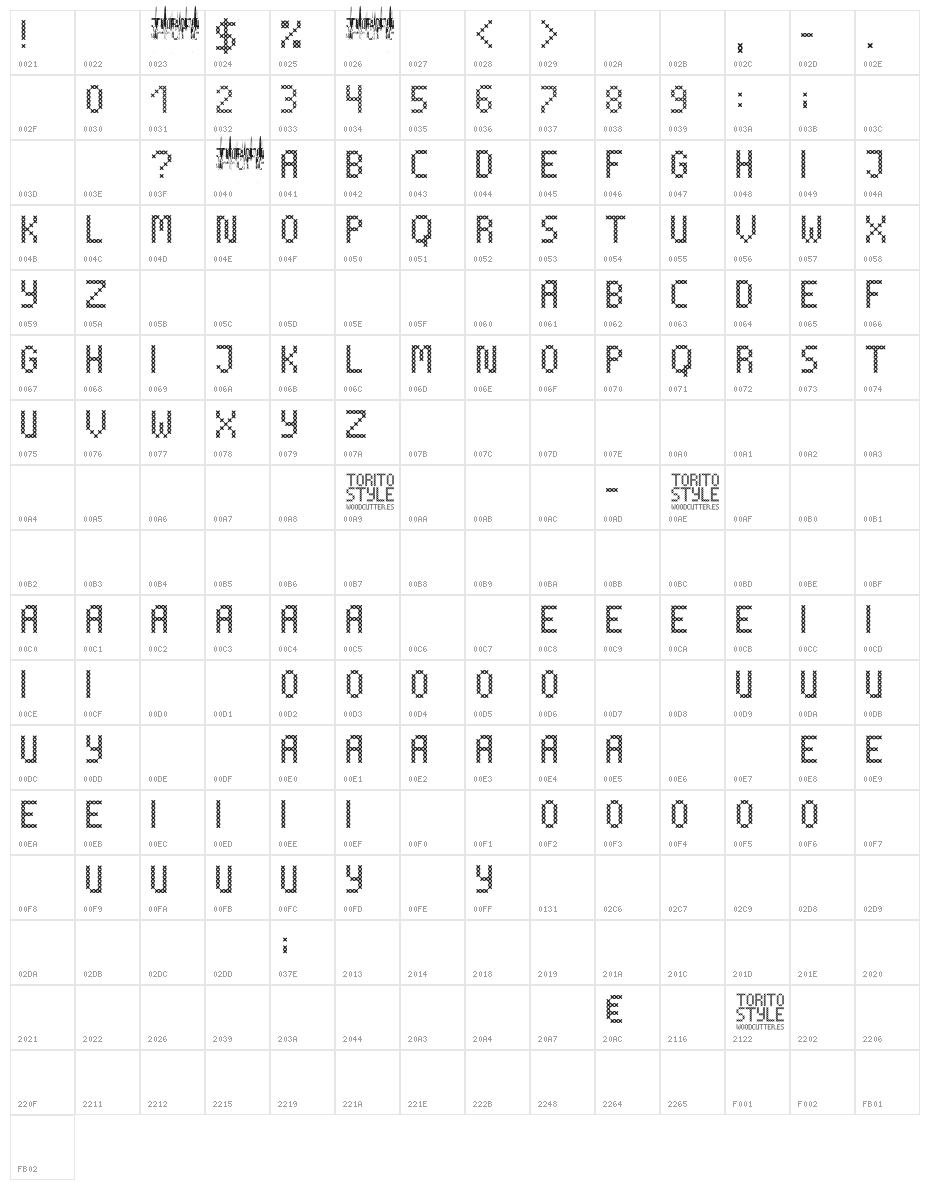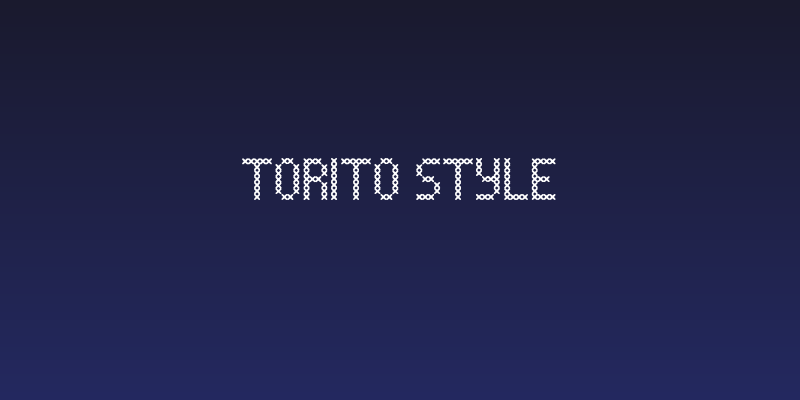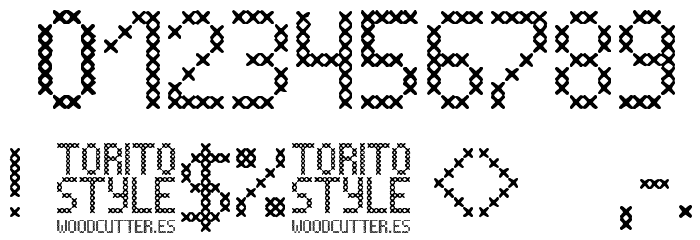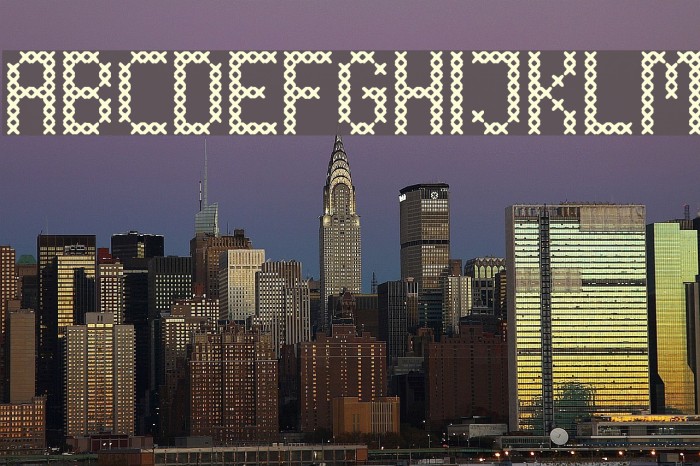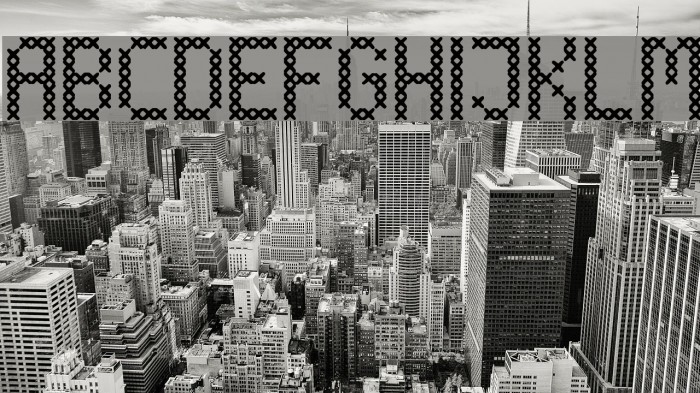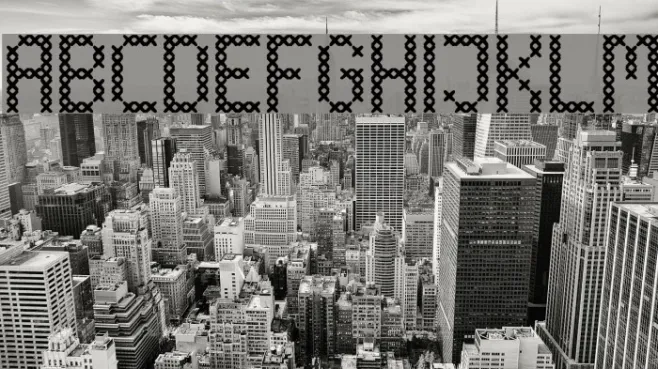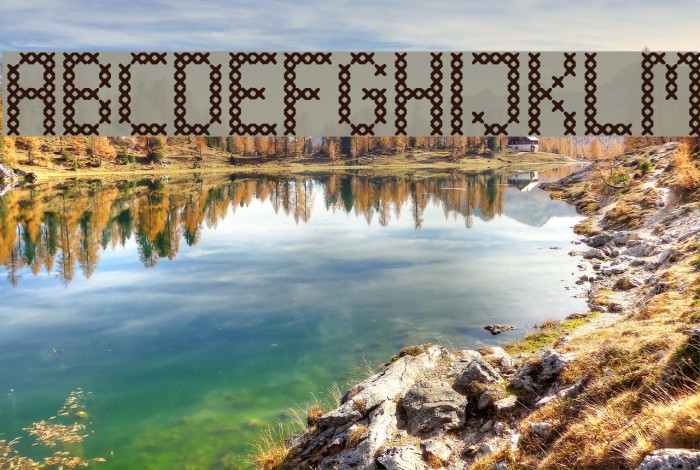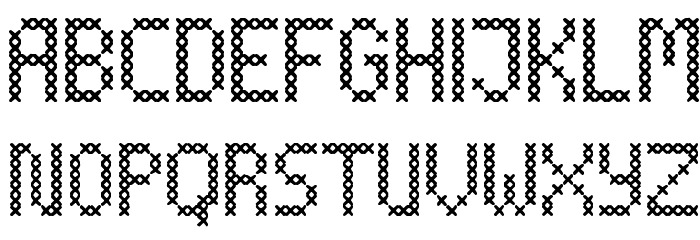
Torito Style Font
Torito Style Description
This font features a unique cross-stitch pattern, reminiscent of traditional embroidery styles. Each character is composed of small, interconnected 'X' shapes, creating a textured and decorative appearance. The uppercase and lowercase letters maintain a consistent structure, while the numbers and special characters follow the same intricate design. This font's distinct style makes it stand out, offering a handcrafted and artistic feel that is both nostalgic and visually engaging.
| Use Case | Logos, Headlines, Craft projects |
| Proposed Projects | Ideal for craft-themed projects, DIY invitations, textile branding, or any design requiring a handmade aesthetic. |